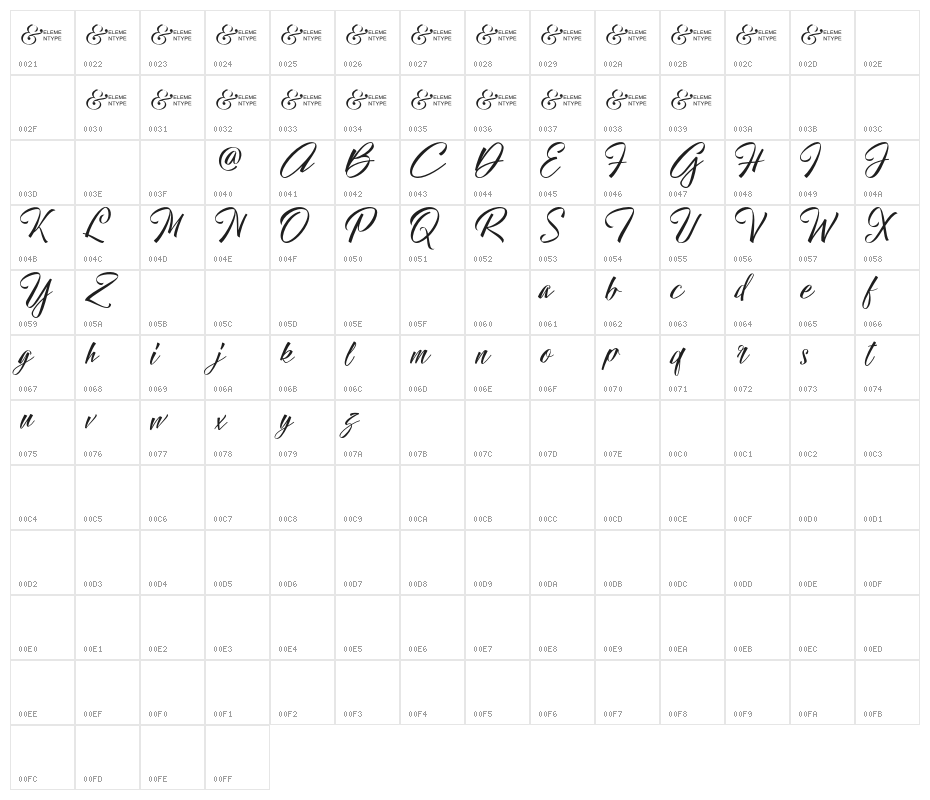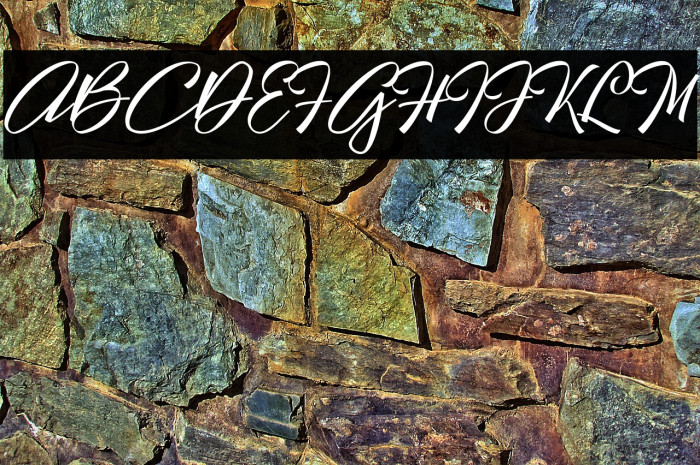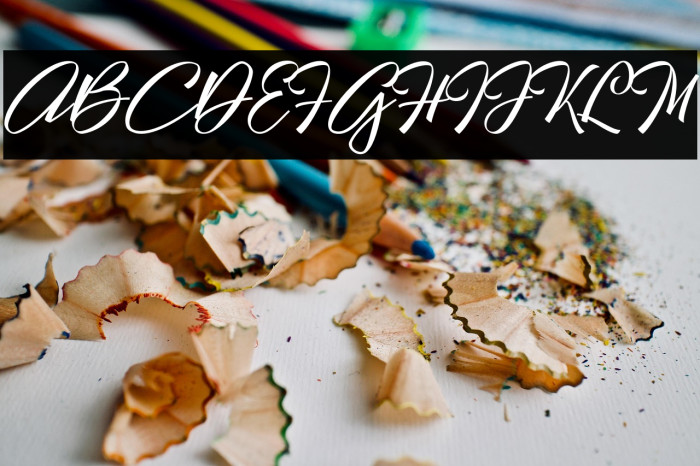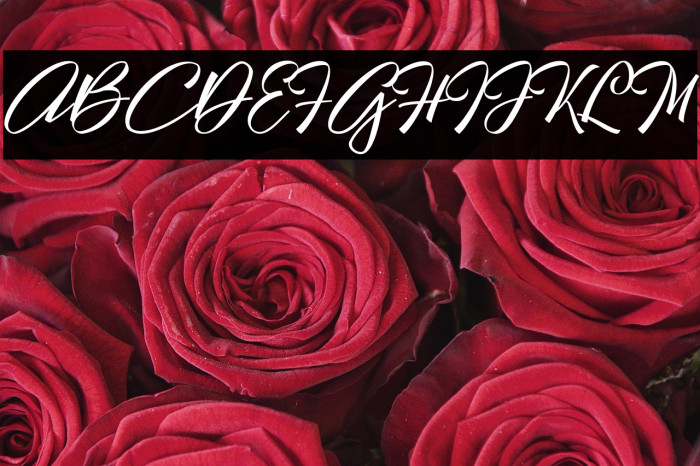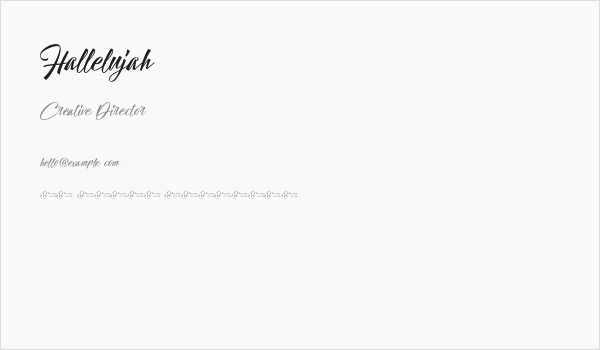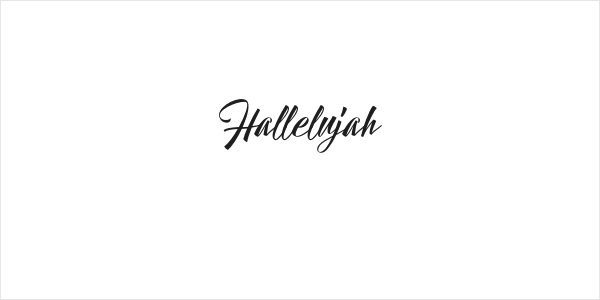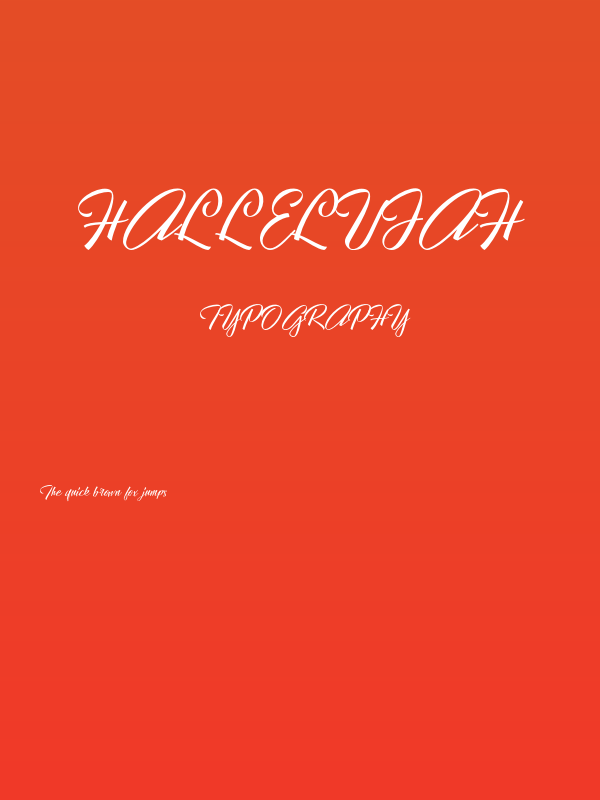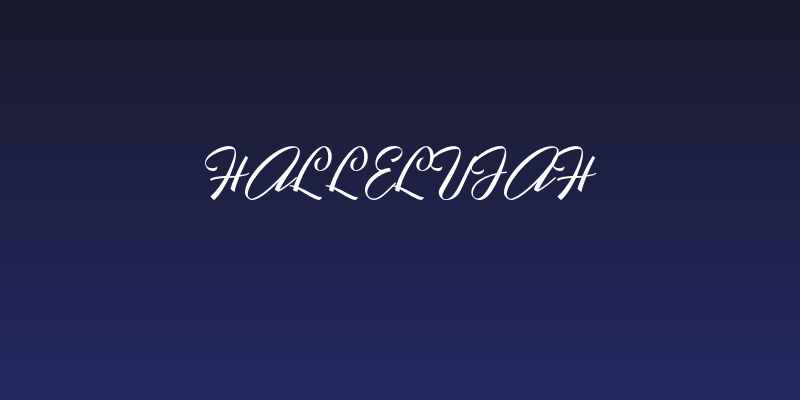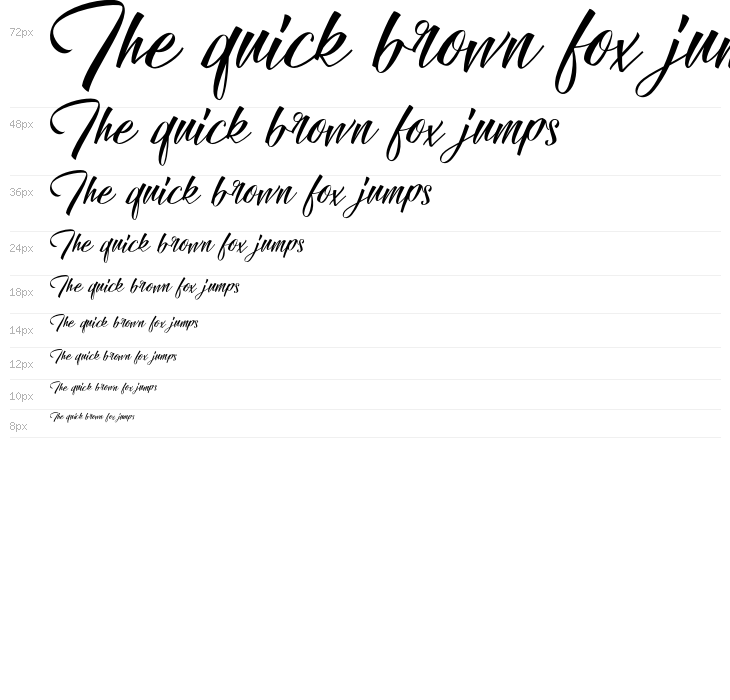
Hallelujah Font
Hallelujah Description
This font features a flowing, cursive style with elegant, sweeping strokes that give it a dynamic and sophisticated appearance. The uppercase letters are characterized by their graceful loops and curves, while the lowercase letters maintain a consistent fluidity, enhancing the overall script-like quality. The font's design is both modern and timeless, making it suitable for a variety of applications. The characters are well-balanced, with a slight slant that adds to the handwritten feel. The numerals and special characters are crafted with the same attention to detail, ensuring a cohesive look across all text elements.
| Proposed Projects | Ideal for wedding invitations, greeting cards, branding projects, and elegant packaging designs. |